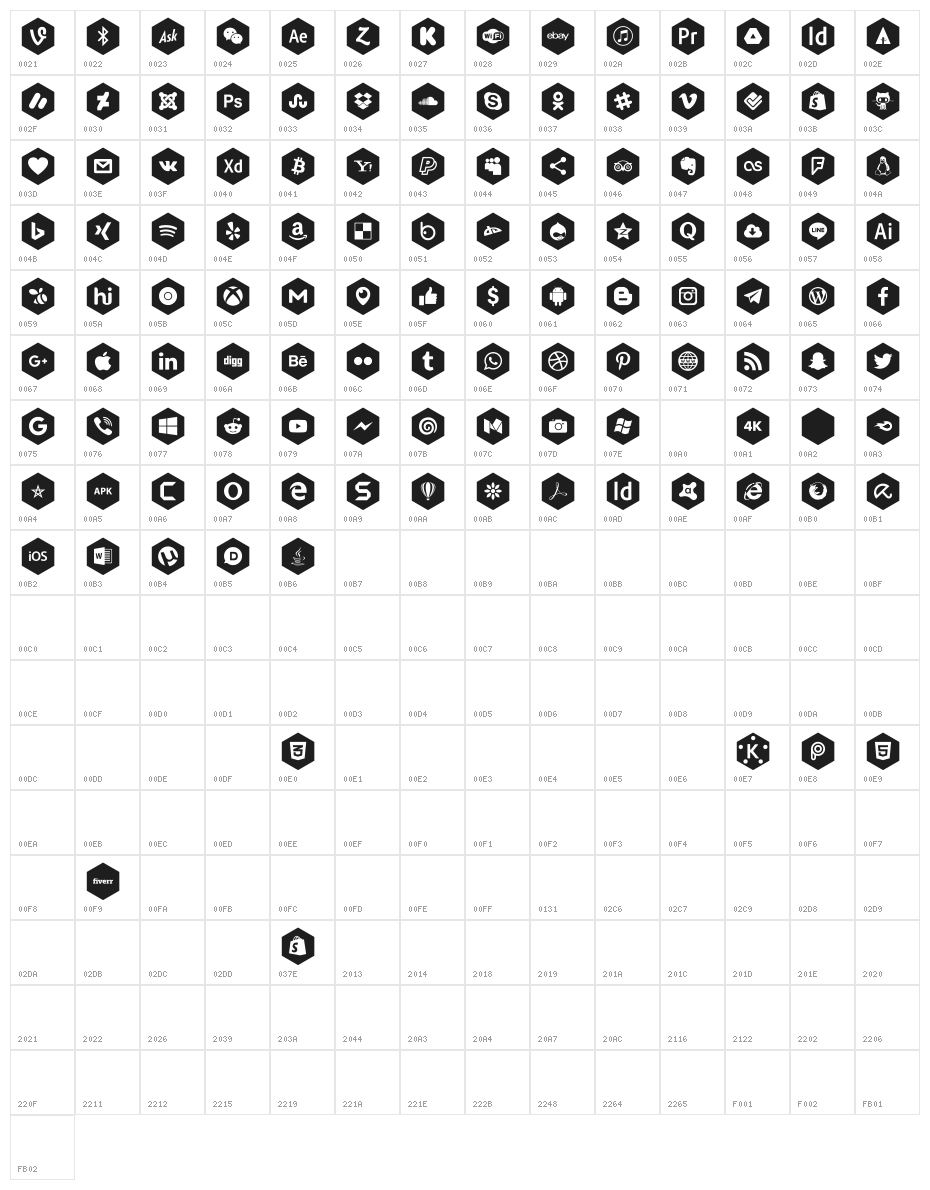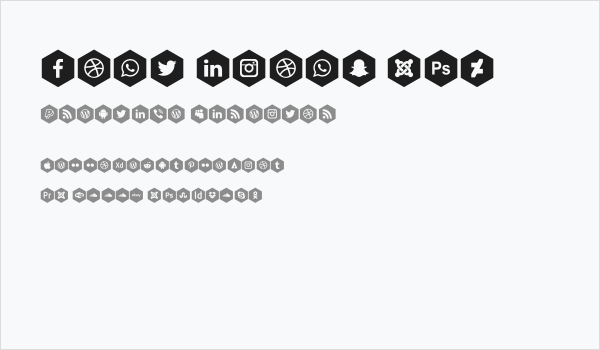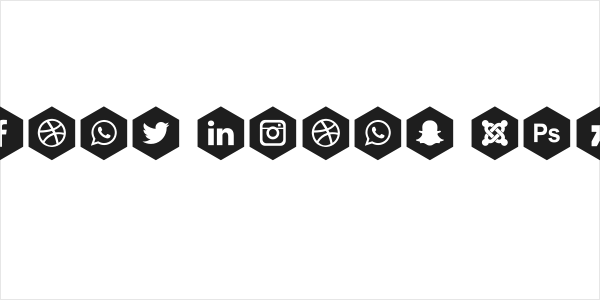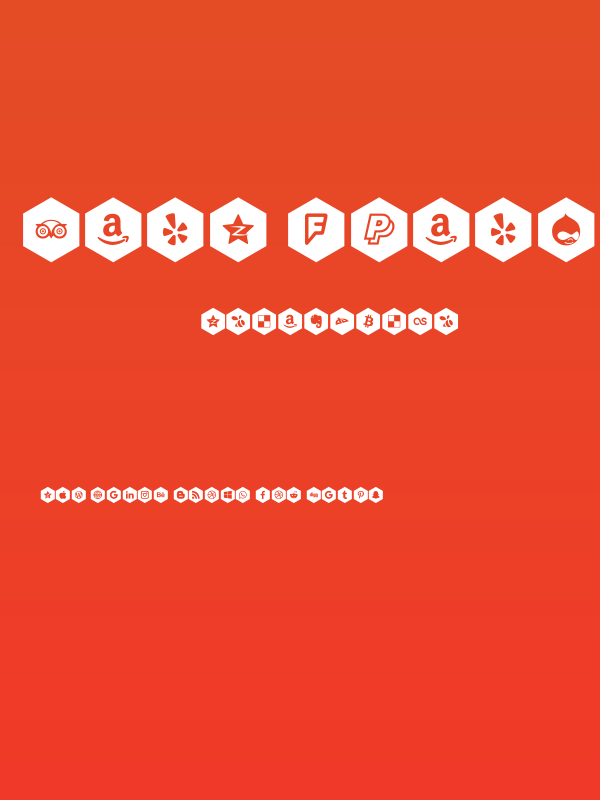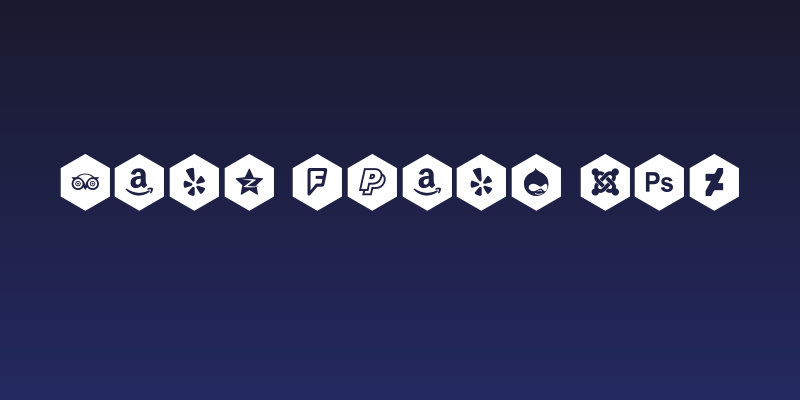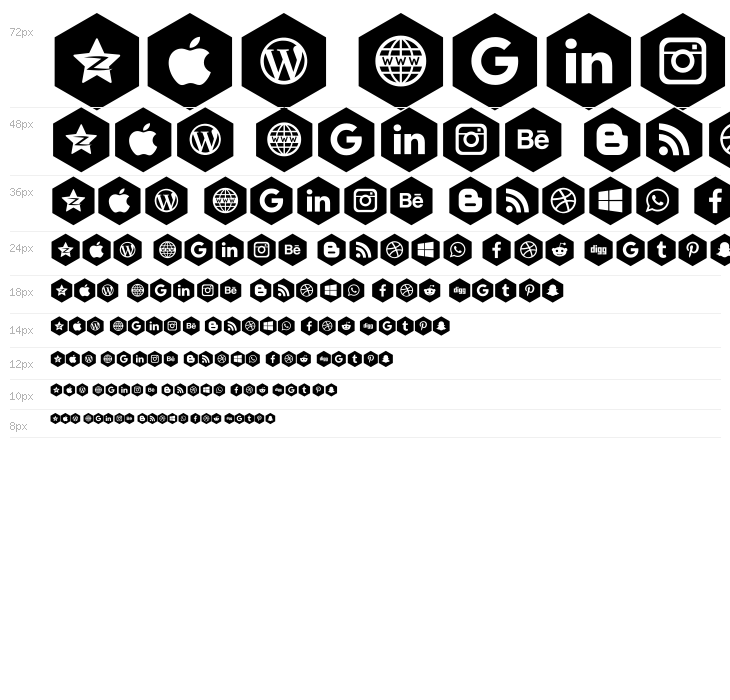
font icons 120 Font
font icons 120 Description
A collection of social media and brand icons, each enclosed in a solid black hexagon with white glyphs. The icons are bold, geometric, and highly legible, designed for clear recognition at small sizes.
| Use Case | Icons, UI elements, navigation, branding |
| Proposed Projects | App interfaces, website footers, social media toolbars, branding materials, icon sets. |